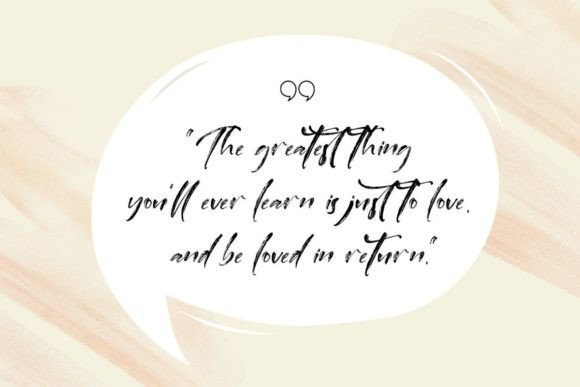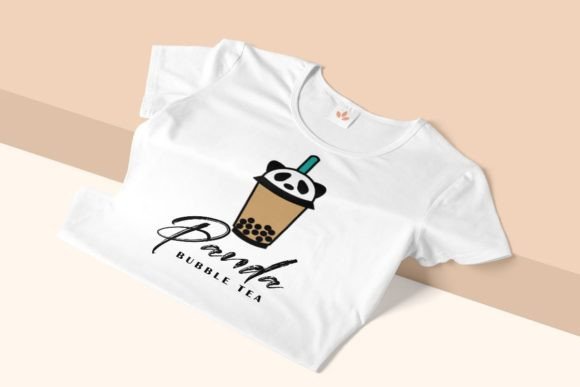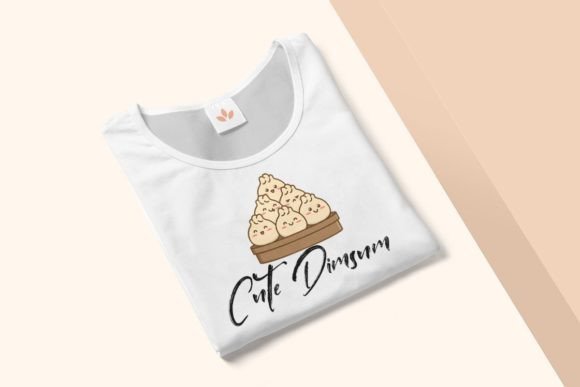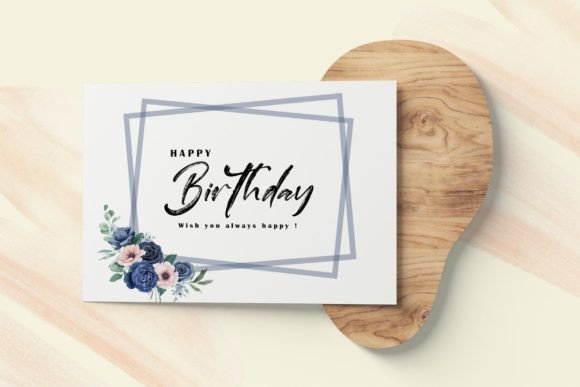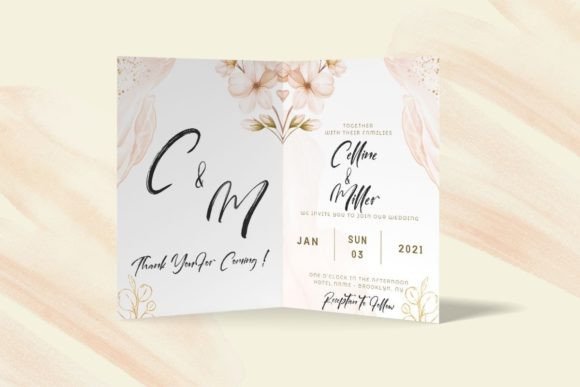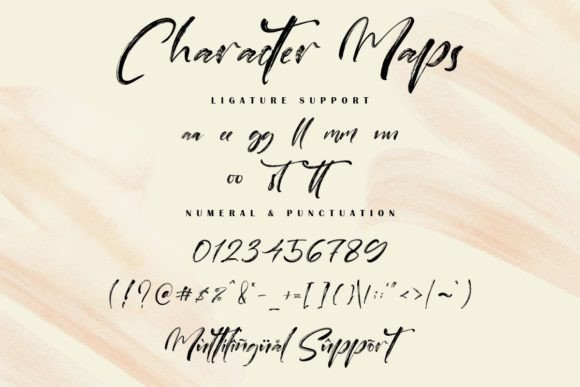
Clusters Font
Clusters is a contemporary hand-lettered script font that seamlessly blends playfulness with elegance. The font’s strokes have a distinctive effect that adds a visual flair, making it an excellent choice for a variety of design applications. From logos to branding materials, Clusters injects a pop of personality into your designs.
The modern and hand-lettered style of Clusters is designed to bring a fresh and dynamic look to your projects. The font’s unique strokes contribute to its visual appeal, making it stand out and leaving a lasting impression.
The PUA encoding feature in Clusters is a valuable addition, allowing easy access to a wide range of glyphs and ligatures. This feature enhances your creative freedom, enabling you to customize and experiment with different elements in your designs.
Whether you’re working on logos, branding materials, or any design where a blend of playfulness and elegance is desired, Clusters provides a versatile solution. Let this script font be the tool that adds a contemporary and charismatic touch to your visual creations.
Incorporate Clusters into your design toolkit and experience how it elevates your projects. Whether used in small details or as a focal point, Clusters brings a unique and eye-catching quality to your designs, making it a standout choice for those seeking a modern hand-lettered script font.